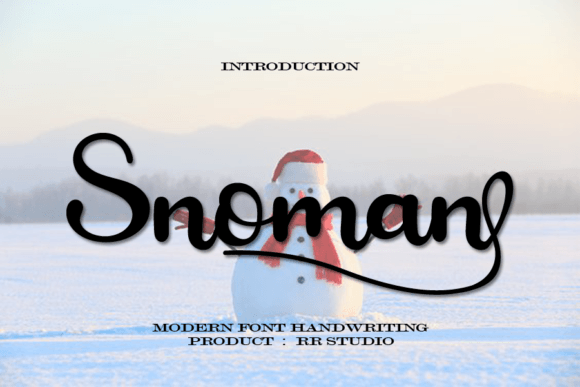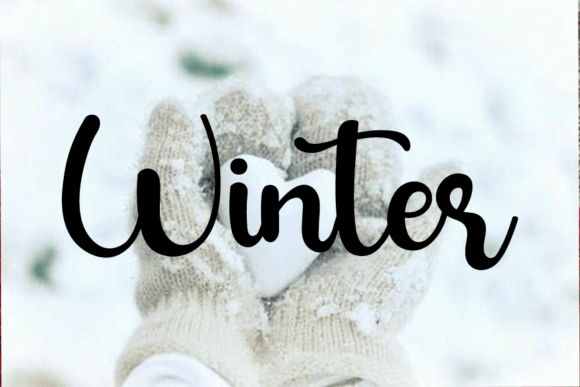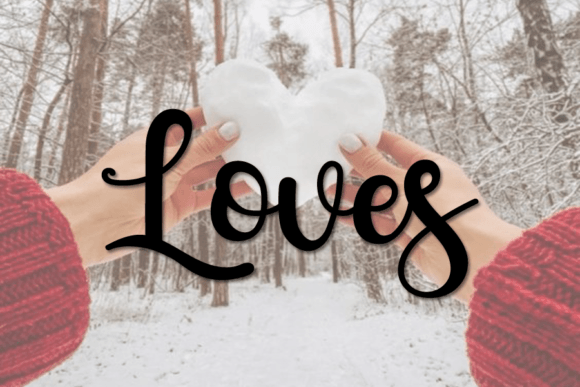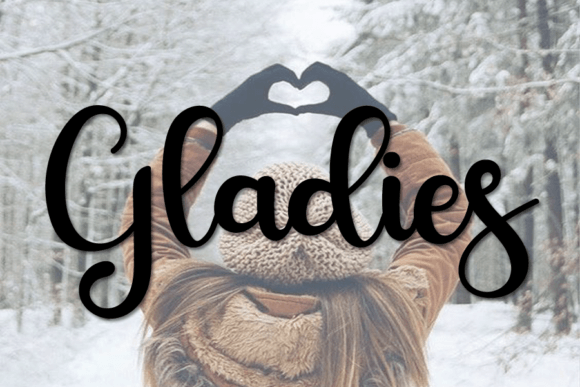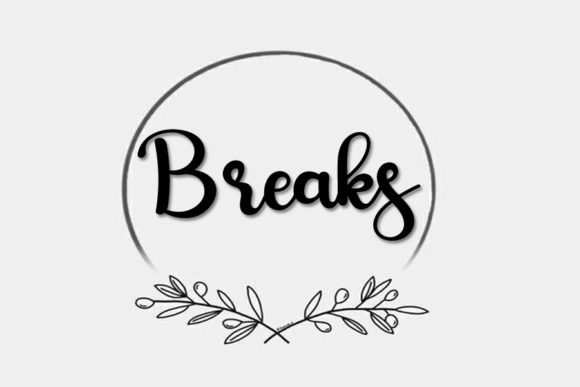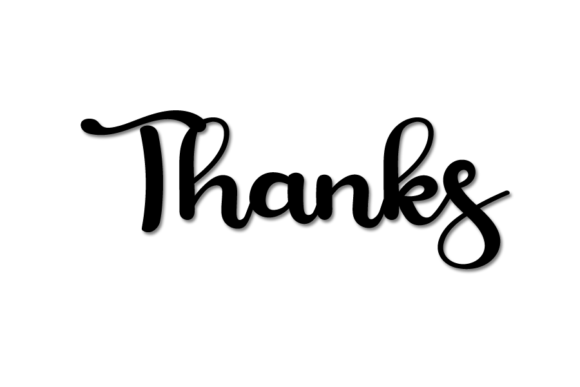
Snowman Font
The Snowman Font Download is a simple and friendly handwritten typeface designed to add charm and personality to your work. With smooth strokes and a casual handwritten feel, this font is approachable yet stylish. Because of its versatility, Snowman can be used for crafts, logos, headlines, apparel, posters, and digital content.
A Friendly Handwritten Script with Character
Snowman captures the beauty of natural handwriting while keeping its letters clean and easy to read. Unlike fonts that focus only on decoration, this Snowman handwritten font balances fun with readability. As a result, it is suitable for both personal and professional projects.
Perfect for Crafts and Greeting Cards
Crafters and DIY enthusiasts often look for fonts that bring warmth to their projects. For example, the Snowman Font is excellent for scrapbooking, embroidery, holiday tags, and greeting cards. Moreover, its casual handwritten flow makes messages more heartfelt and personal.
Branding and Logo Design with Snowman
A brand’s identity depends on typography, and Snowman is a strong choice. The Snowman script font works well for corporate identity, apparel branding, and product packaging. In addition, it gives businesses a modern yet friendly personality that customers can connect with.
Great for Posters, Titles, and Headlines
Large text projects such as posters and banners demand fonts that stand out. The Snowman Font Download performs well at bigger sizes while staying readable in smaller uses. Therefore, it is ideal for magazines, movies, games, and music-related designs.
Social Media and Digital Design
Snowman also works beautifully for digital spaces. For example, it integrates smoothly with YouTube thumbnails, Instagram posts, websites, and blogs. The Snowman typeface helps digital creators design content that is both engaging and easy to read.
Why Designers Choose Snowman Typeface
Designers enjoy fonts that combine playfulness with functionality. Many handwritten styles lose clarity at smaller sizes, but the Snowman handwritten script remains legible while keeping its charm. This makes it a reliable option for creative professionals and hobbyists.